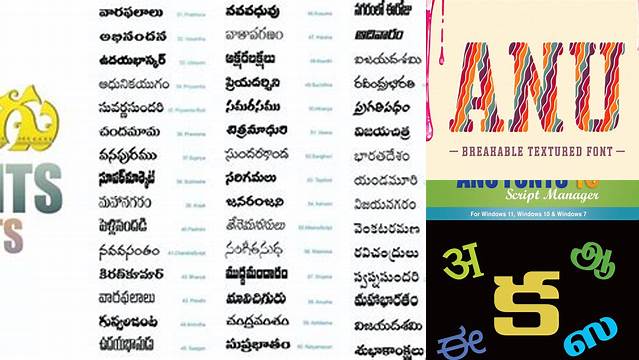
Anu Fonts: Free TTF Downloads For Creative Designs
Hey guys! Are you on the hunt for some awesome fonts to spice up your designs? Look no further! In this article, we're diving deep into the world of Anu fonts free download TTF. We'll explore everything from what Anu fonts are, where to find them, and how to use them in your projects. Get ready to unleash your creativity with these fantastic typefaces!
1. What are Anu Fonts?
So, what exactly are Anu fonts? Anu fonts refer to a specific collection of typefaces often associated with regional or cultural designs. They stand out due to their unique character and aesthetic appeal, making them a popular choice for designers seeking to add a distinctive touch to their work. Often, these fonts reflect the artistic traditions and linguistic nuances of a particular area, giving them a special significance. The Anu fonts free download TTF availability means that designers can easily access these unique typefaces and incorporate them into their projects without any cost. This accessibility encourages broader use and appreciation of these culturally rich fonts, helping to preserve and promote the artistic heritage they represent. Exploring these fonts opens up a world of creative possibilities, allowing you to create designs that are both visually appealing and culturally meaningful. For instance, you might find Anu fonts that mimic the calligraphy of ancient scripts, offering a way to connect modern designs with historical art forms. This blend of contemporary technology and traditional artistry makes Anu fonts a valuable resource for anyone looking to create designs with depth and character. Plus, the variety within the Anu font family ensures that there's something for every project, whether you're working on branding, web design, or print materials. So, dive in and discover the beauty and versatility of Anu fonts!
2. Why Choose Anu Fonts for Your Projects?
Why should you even bother with Anu fonts free download TTF, you ask? Well, there are tons of reasons! First off, they bring a unique flavor to your projects that standard fonts just can't match. Imagine using a font that subtly nods to a specific cultural aesthetic—it adds depth and meaning to your design. Plus, using unique fonts can really make your work stand out from the crowd. In a world where everyone is using the same handful of fonts, Anu fonts free download TTF offer a chance to be different and memorable. They can help you create a brand identity that is both distinctive and authentic. Moreover, many Anu fonts are designed with readability in mind, ensuring that your message is not only beautiful but also clear and easy to understand. This is especially important for projects that require a lot of text, such as websites, books, or brochures. The versatility of Anu fonts also means that they can be used in a wide range of applications, from formal documents to creative marketing materials. Whether you're designing a logo, a poster, or a website, Anu fonts can help you achieve a look that is both professional and eye-catching. The best part? They're often available for free, making them an accessible option for designers of all levels. So, if you're looking to elevate your designs and add a touch of cultural richness, Anu fonts are definitely worth exploring. They provide a unique blend of tradition and modernity, allowing you to create designs that are both timeless and contemporary. Give them a try and see how they can transform your projects!
3. Finding Free Anu Fonts Online
15. The Future of Anu Fonts
Futurists, let's speculate! What does the future hold for Anu fonts free download TTF? Will they become more mainstream, or will they remain niche treasures? The future of Anu fonts is likely to be shaped by several factors, including technological advancements, cultural trends, and the efforts of designers and typographers. As technology continues to evolve, we can expect to see more sophisticated tools and techniques for creating and using Anu fonts. This could lead to the development of new and innovative Anu fonts that push the boundaries of typography. Additionally, cultural trends are likely to influence the demand for Anu fonts. As the world becomes more globalized, there is a growing interest in preserving and celebrating cultural diversity. This could lead to a greater appreciation for Anu fonts and their unique cultural significance. Finally, the future of Anu fonts free download TTF will depend on the efforts of designers and typographers who are passionate about these typefaces. These individuals can help to promote Anu fonts by using them in their designs, sharing them with others, and contributing to their development. By working together, we can help to ensure that Anu fonts continue to thrive and inspire designers for generations to come.